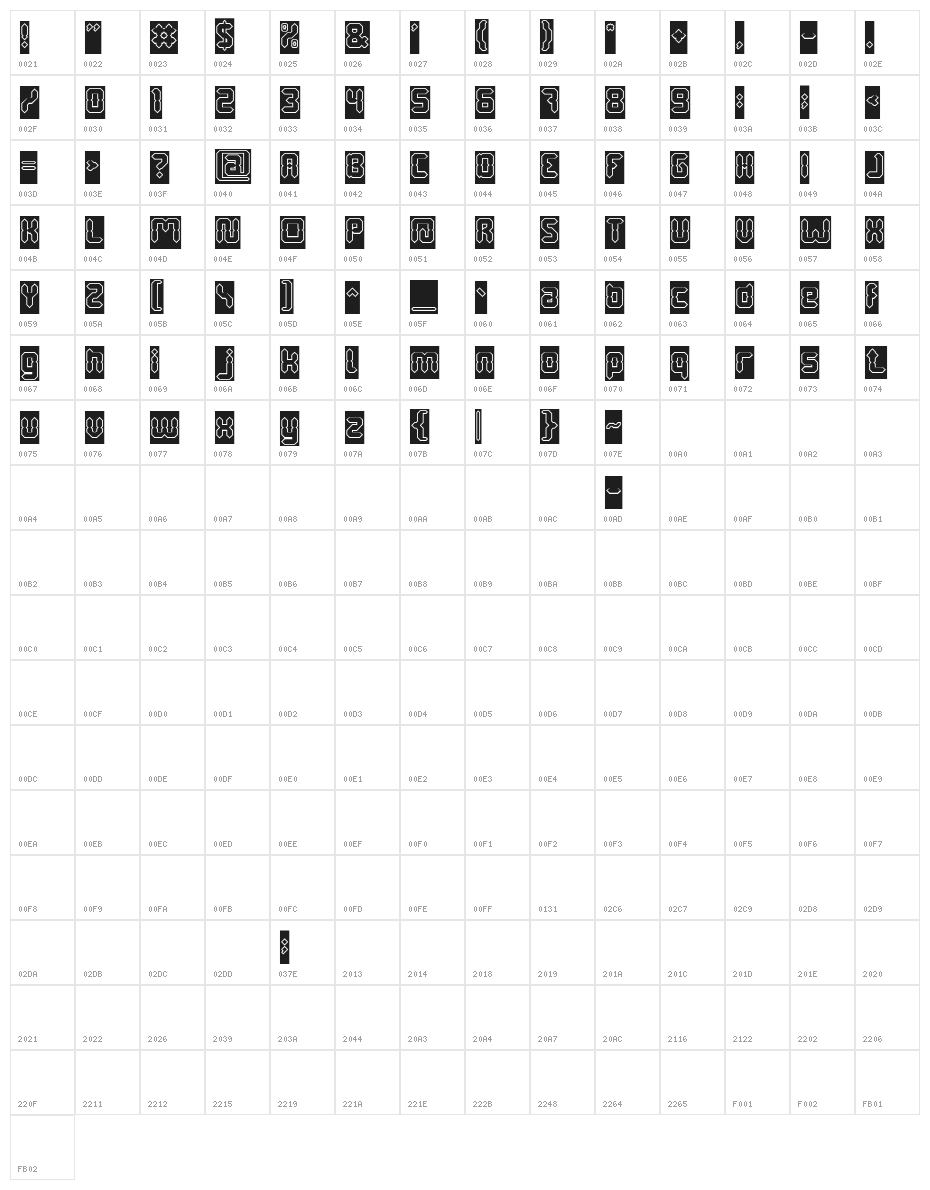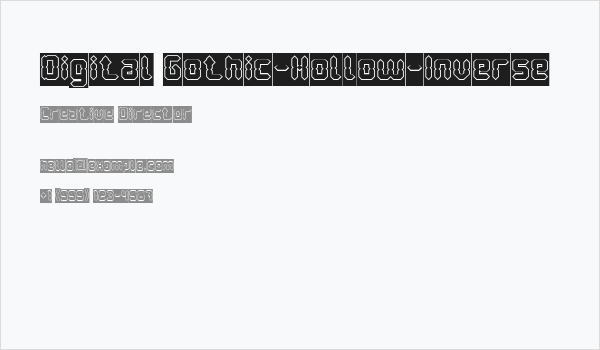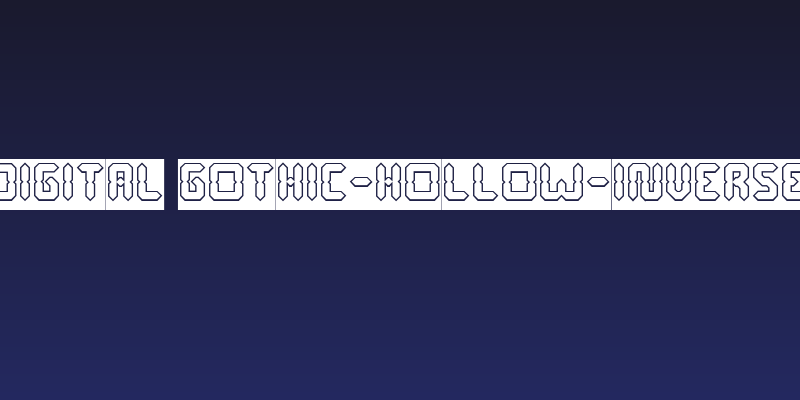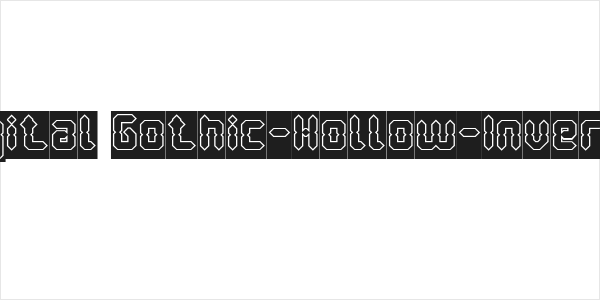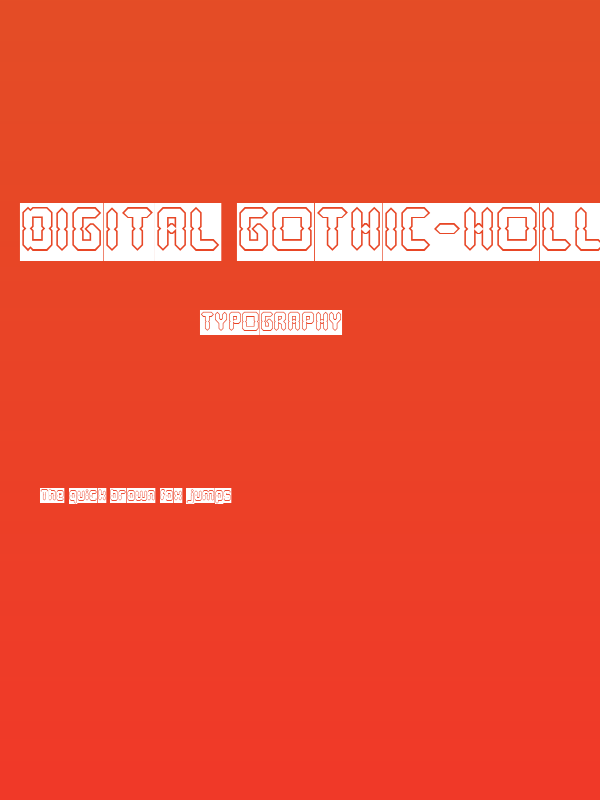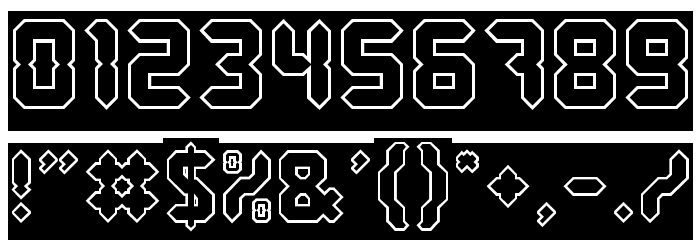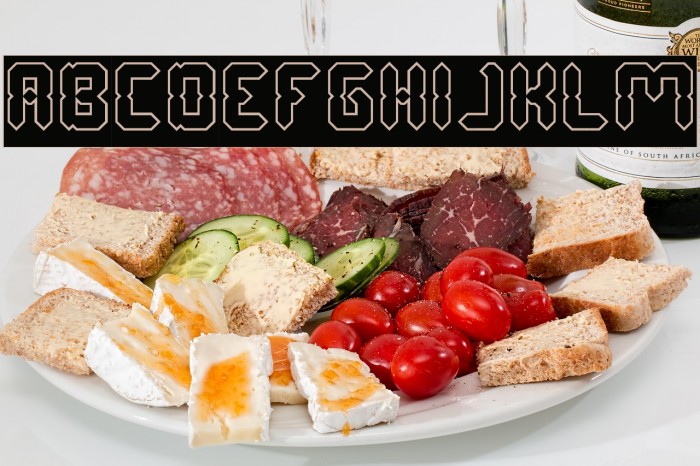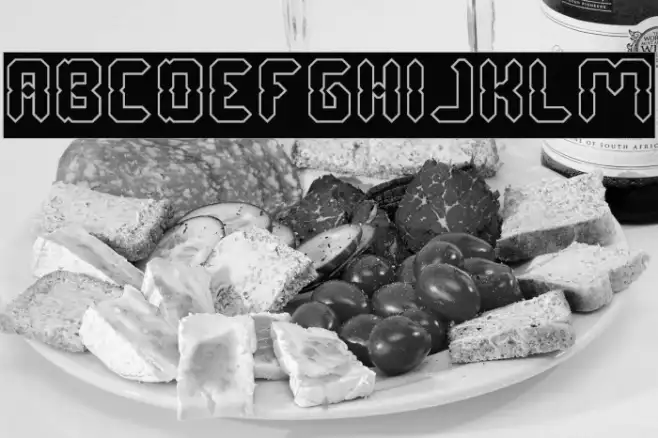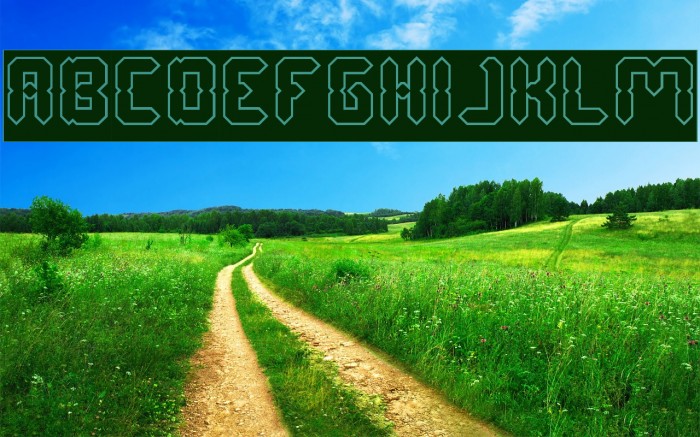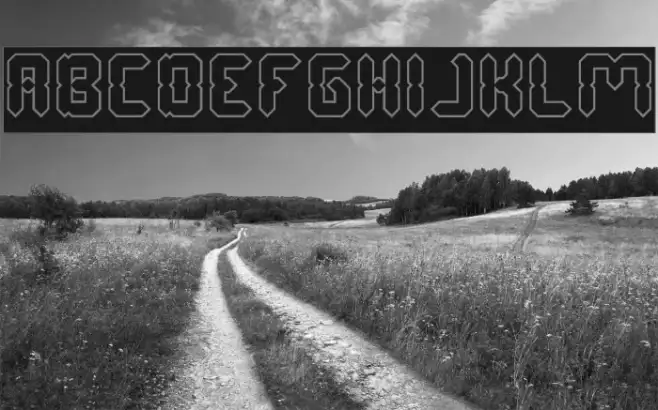
Digital Gothic-Hollow-Inverse Font
Digital Gothic-Hollow-Inverse Description
This font features a bold, geometric design with a hollow, inverse style that gives it a digital and futuristic appearance. The characters are constructed with sharp angles and straight lines, creating a sense of precision and modernity. The uppercase and lowercase letters maintain a consistent style, with the lowercase being slightly smaller but equally bold. Numbers and special characters follow the same design principles, ensuring uniformity across all glyphs. The font's hollow nature allows for a unique visual effect, making it stand out in digital and print media. Its distinct style is reminiscent of digital displays and retro-futuristic aesthetics.
| Overall Style | Futuristic, Digital |
| Proposed Projects | Ideal for digital art, video game graphics, tech branding, and futuristic-themed posters. |